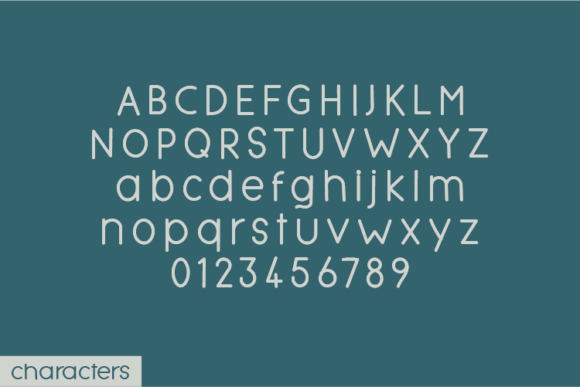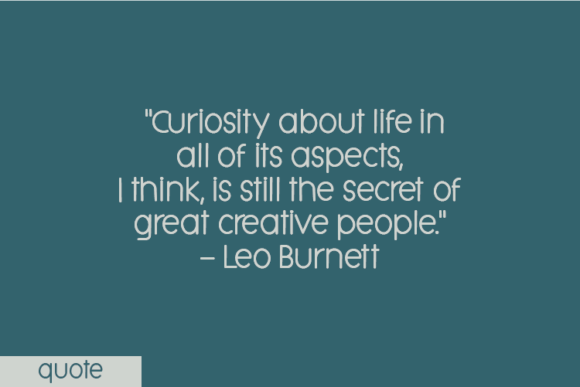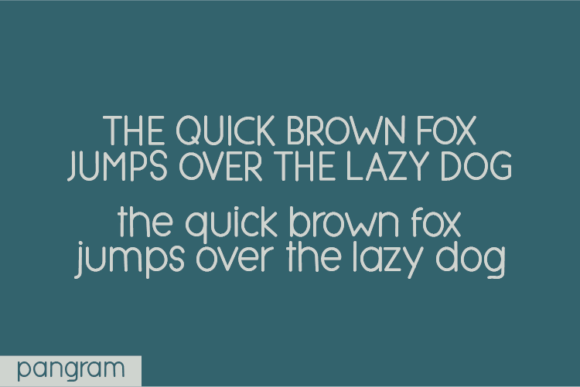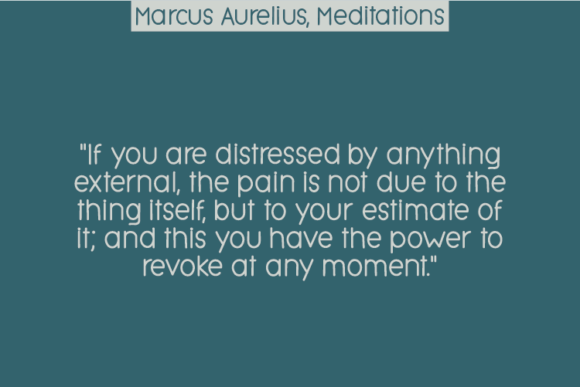
Aromaticalm Font: The Unique Handwritten Font for Creative Designs
In the world of typography, a font can make or break a design. For designers and crafters, finding the perfect font that adds a personal touch to their work can be a daunting task. This is where Aromaticalm Font comes in – a natural handwritten font that stands out from the rest due to its unique characteristics. In this article, we’ll dive into what makes Aromaticalm Font special and why it’s perfect for quotes, notes, tees, and any product design.
The Uniqueness of Aromaticalm Font
Aromaticalm Font is a natural handwritten font that boasts a distinctive feature – it doesn’t alter a single node in each character’s indentation. This means that every letter, word, and sentence flows smoothly and organically, giving the font a one-of-a-kind look. The creator of Aromaticalm Font has carefully crafted each character to maintain its original indentation, making it a true gem in the world of typography.
Perfect for Quotes and Notes
One of the primary uses of Aromaticalm Font is for quotes and notes. The font’s natural, handwritten style adds a personal touch to any quote or note, making it perfect for journals, planners, and other paper crafts. Designers can use Aromaticalm Font to create visually appealing quotes that inspire and motivate, while crafters can use it to add a personal touch to their handmade cards and gift tags.
Great for Tees and Product Design
Aromaticalm Font is not just limited to paper crafts; it’s also perfect for tees and product design. The font’s unique style and organic feel make it an excellent choice for designing t-shirts, mugs, and other products. With Aromaticalm Font, designers can create eye-catching designs that stand out from the crowd and appeal to customers looking for something unique.
Why Designers and Crafters Love Aromaticalm Font
So, why do designers and crafters love Aromaticalm Font? Here are a few reasons:
- Unique style: Aromaticalm Font has a distinctive style that’s hard to find in other fonts. Its natural, handwritten look adds a personal touch to any design.
- Versatility: Aromaticalm Font is versatile and can be used for a wide range of projects, from quotes and notes to tees and product design.
Tips for Using Aromaticalm Font
Here are a few tips for using Aromaticalm Font:
- Pair it with other fonts: Aromaticalm Font pairs well with other fonts, so don’t be afraid to experiment with different combinations.
- Use it for headings and titles: Aromaticalm Font is perfect for headings and titles, adding a personal touch to any design.
- Experiment with colors: Aromaticalm Font looks great in a variety of colors, so don’t be afraid to experiment with different hues and shades.
In conclusion, Aromaticalm Font is a unique and versatile font that’s perfect for designers and crafters looking to add a personal touch to their work. Its natural, handwritten style and distinctive indentation make it a standout in the world of typography. Whether you’re creating quotes, notes, tees, or product designs, Aromaticalm Font is an excellent choice. So, why not give it a try and see what amazing designs you can create?